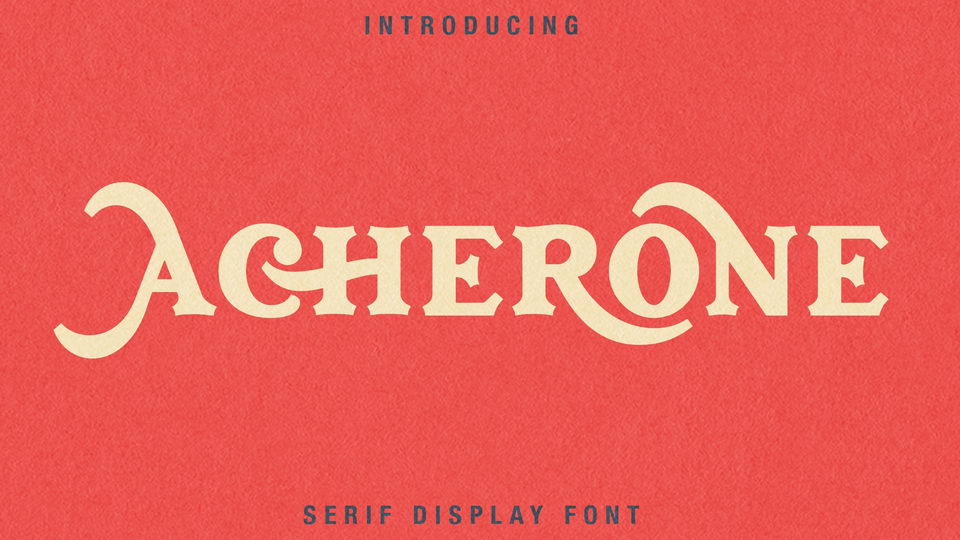
Download Acherone font, a display typeface that perfectly represents vintage esthetics in a contemporary serif typeface. The Acherone matches applies in some designs such as the logotype, brand, magazine, website or blog headlines, packaging, branding, quotes, business cards and more custom design.